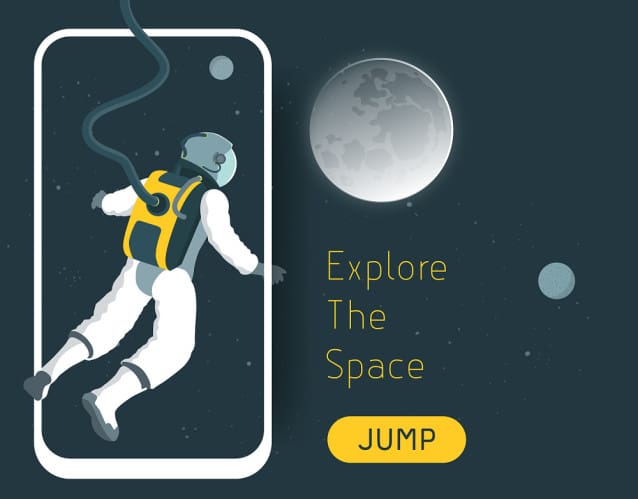
Hyperjump Font
Hyperjump Font – A free sans, It would be a perfect choice to design posters, affiches, logos, t-shirt and magazine prints, eye-pleasing typographic designs and more.